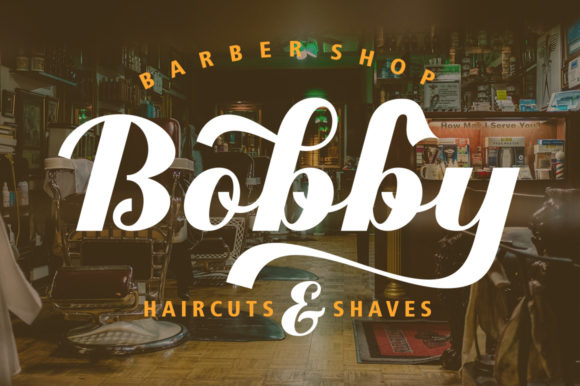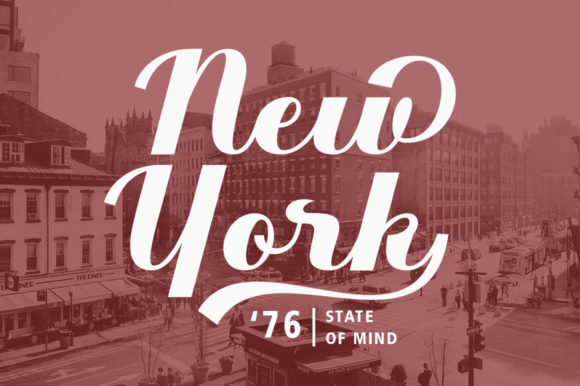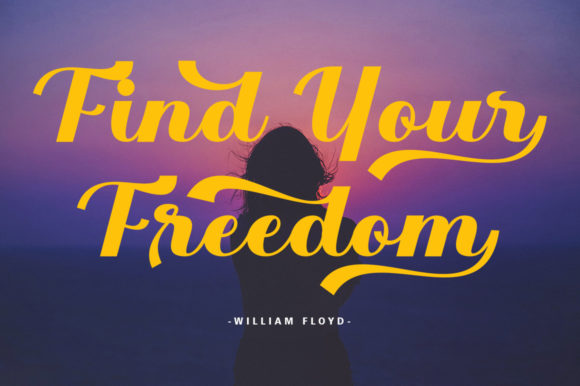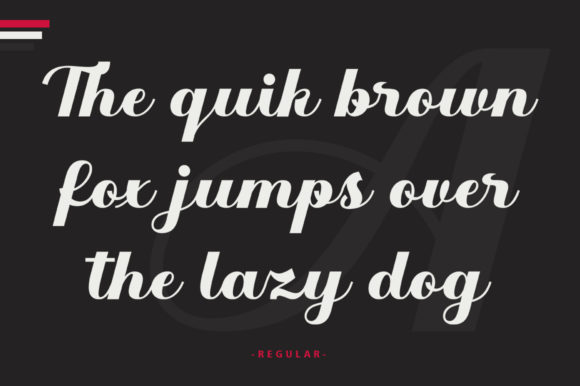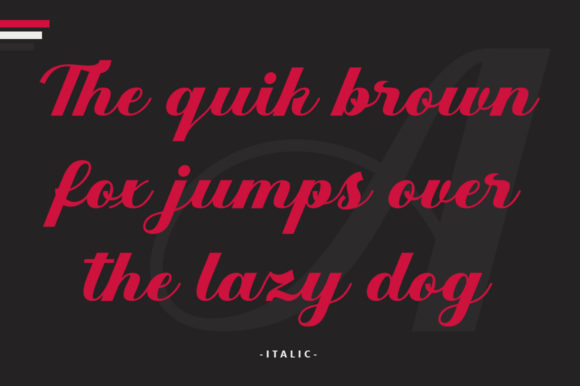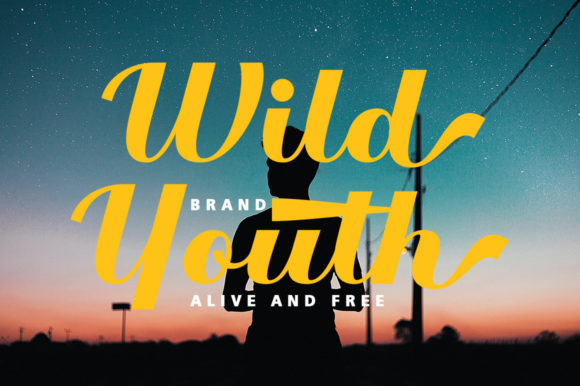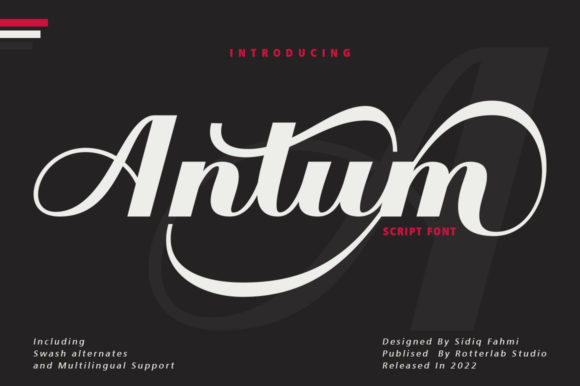
Introducing Antum Font: A Vintage Bold Script Font with a Natural Twist
Are you tired of using the same old fonts in your designs? Look no further than Antum Font, a stunning vintage bold script font that’s sure to add a touch of elegance and whimsy to any project. Inspired by a lovely style, Antum Font boasts imperfect shapes that give it a delightfully natural look, perfect for designers and crafters looking to add some character to their work.
The Inspiration Behind Antum Font
Antum Font is heavily influenced by traditional script fonts, but with a unique twist. The font’s creator aimed to capture the essence of a classic style while infusing it with a sense of imperfection, making it feel more human and authentic. The result is a font that’s both nostalgic and fresh, with a distinctive charm that’s sure to capture the attention of your audience.
What Makes Antum Font Special?
So, what sets Antum Font apart from other fonts out there? Here are just a few features that make it a standout:
- Vintage bold script style: Antum Font boasts a beautiful, bold script style that’s perfect for headlines, titles, and other design elements.
- Imperfect shapes: The font’s imperfect shapes give it a natural, hand-crafted look that’s perfect for designers looking to add some character to their work.
- PUA encoded: Antum Font is PUA (Private Use Area) encoded, which means you can access all glyphs and swashes with ease. This makes it simple to customize your text and add unique flourishes to your designs.
Antum Font is an excellent choice for designers and crafters working on a wide range of projects, from:
- Branding and logos: The font’s bold, eye-catching style makes it perfect for creating memorable logos and brand identities.
- Invitations and stationery: Antum Font’s elegant, script style is well-suited for formal invitations, greeting cards, and other stationery.
- Packaging and labels: The font’s unique character makes it an excellent choice for packaging and label design, helping your products stand out on store shelves.
- Digital and print media: Whether you’re creating social media graphics, blog posts, or print ads, Antum Font is a versatile choice that will add a touch of sophistication to your designs.
Tips for Using Antum Font
To get the most out of Antum Font, here are a few tips to keep in mind:
- Experiment with font sizes: Antum Font looks great in a variety of sizes, from large headlines to smaller body text.
- Play with swashes and glyphs: Take advantage of the font’s PUA encoding to add unique swashes and glyphs to your text.
- Mix and match with other fonts: Antum Font pairs well with a range of other fonts, so don’t be afraid to experiment with different combinations.
Antum Font is a one-of-a-kind vintage bold script font that’s sure to add a touch of elegance and whimsy to your designs. With its imperfect shapes, PUA encoding, and versatile style, it’s an excellent choice for designers and crafters working on a wide range of projects. So why settle for a generic font when you can add a little character to your work with Antum Font?